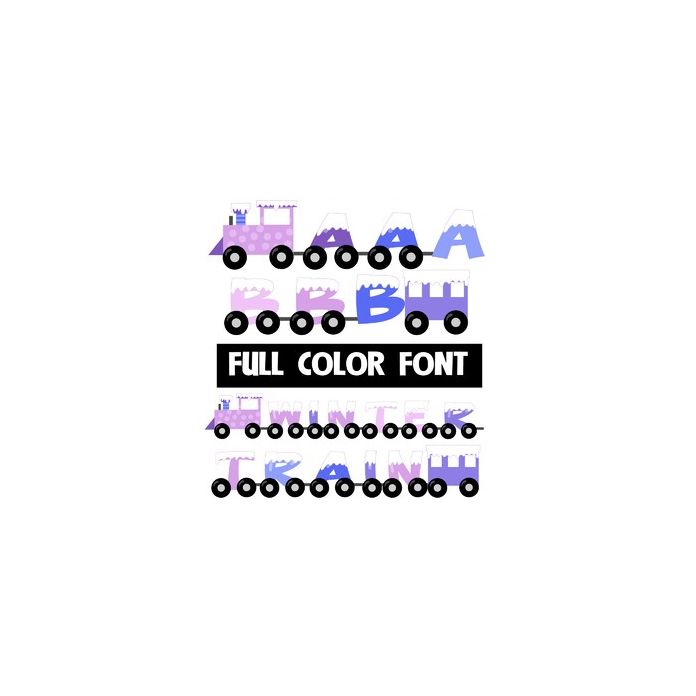
This full-color font features letters on snow-laden train cars. Type parenthesis to get a train engine and caboose and triangle brackets to get two extra blank cars and the underscore to get an empty car. There is an alt case of snowy lettering without train wheels you can access thru Silhouette's or your system's glyph map.